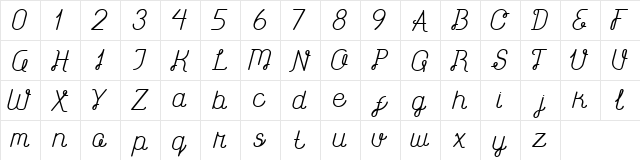
Brownice Italic Regular
Design Context for Brownice Italic Typeface
Brownice Italic is a composed and adaptable typeface that performs quietly and consistently across a wide range of design contexts. Its italic angle brings a sense of urgency and motion to the letterforms.
Pro Tip: Use Brownice Italic for emphasis, pull quotes, and subheadings where its slanted energy can add rhythm to the layout.